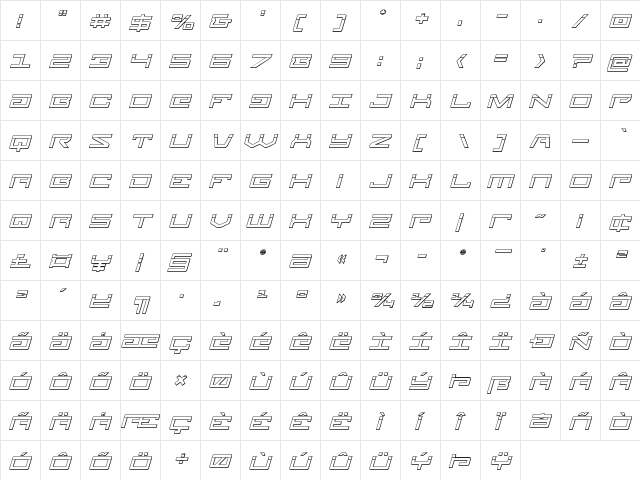
Legion Bullet Italic Italic
Design Context for Legion Bullet Italic Typeface
Legion Bullet Italic is a composed and adaptable typeface that performs quietly and consistently across a wide range of design contexts. The slanted form adds forward momentum and visual energy.
Pro Tip: Use Legion Bullet Italic for emphasis, pull quotes, and subheadings where its slanted energy can add rhythm to the layout.